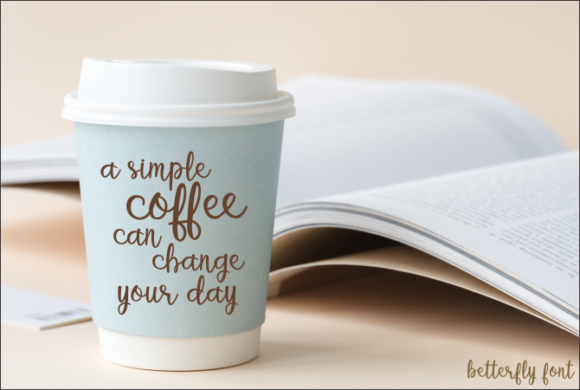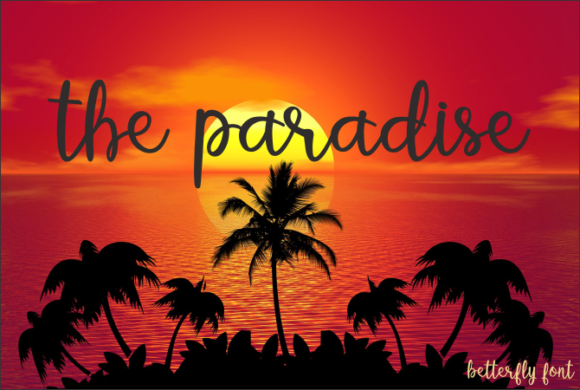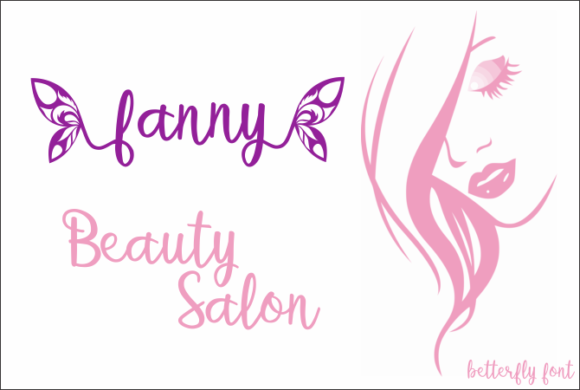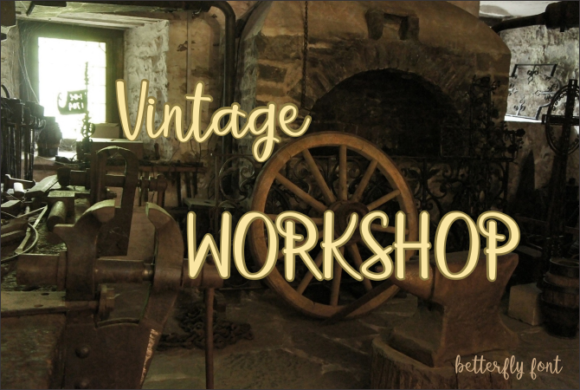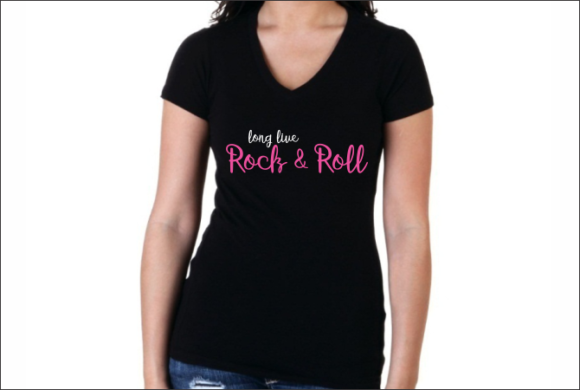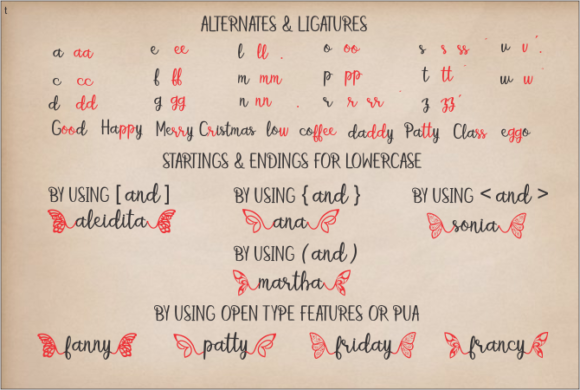
Betterfly Font: Elevate Your Designs with a Touch of Whimsy
Are you looking for a font that can add a dash of magic to your projects? Look no further than Betterfly Font, a stunning handwritten script that is sure to give your designs that “wow!” factor. With its beautiful and romantic feel, this font is perfect for designers and crafters who want to create truly unique and eye-catching designs.
The Unique Charm of Betterfly Font
Betterfly Font is a one-of-a-kind script that boasts a beautiful, handwritten aesthetic. Its elegant and flowing lines evoke a sense of romance and sophistication, making it perfect for a wide range of design applications. From wedding invitations and branding materials to social media graphics and digital art, this font is sure to add a touch of whimsy and charm to any project.
Butterfly Wings and Beautiful Characters
One of the standout features of Betterfly Font is its inclusion of butterfly wings in some of the characters. This unique touch allows designers to create truly one-of-a-kind designs that are sure to capture the imagination of their audience. Whether you’re looking to add a subtle hint of whimsy or a bold statement to your designs, Betterfly Font has got you covered.
Betterfly Font is a versatile script that is perfect for both designers and crafters. Its ease of use and flexibility make it an ideal choice for a wide range of design applications, from commercial projects to personal crafts. Whether you’re a seasoned designer or a DIY enthusiast, this font is sure to inspire your creativity and help you bring your ideas to life.
Key Features of Betterfly Font
- Stunning handwritten script with a beautiful and romantic feel
- Includes butterfly wings in some characters for a unique touch
- Perfect for a wide range of design applications, from wedding invitations to digital art
- Ease of use and flexibility make it ideal for designers and crafters
- Unique and eye-catching designs that are sure to capture the imagination of your audience
Tips for Using Betterfly Font
To get the most out of Betterfly Font, here are a few tips to keep in mind:
- Use it sparingly: Betterfly Font is a statement font, so use it sparingly to add emphasis and impact to your designs.
- Experiment with colors: The font’s elegant lines and whimsical butterfly wings look great in a variety of colors, so don’t be afraid to experiment and find the perfect hue for your design.
- Pair it with complementary fonts: Betterfly Font pairs well with a range of fonts, so try pairing it with complementary fonts to create a unique and visually appealing design.
Betterfly Font is a stunning handwritten script that is sure to elevate your designs and give them that “wow!” factor. With its beautiful and romantic feel, unique butterfly wing characters, and ease of use, this font is perfect for designers and crafters who want to create truly unique and eye-catching designs. So why wait? Download Betterfly Font today and start adding a touch of magic to your projects!